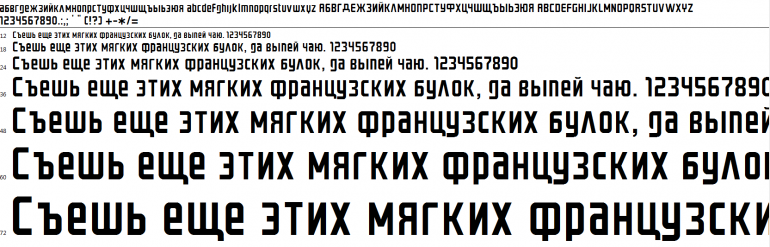
GordonFroman Posted April 22, 2019 Share Posted April 22, 2019 Greetings, Klei! I really enjoy playing your games and I'm more than happy that you added russian language into Oxygen Not Included (btw the game is awesome), but unfortunately there's no cyrillic version of the Graystroke font used in game, so all russian words are written with boring standart font. Well, there was no cyrrilic version, because I made one. I tried to add it into the game with mods, but I failed. So I decided to send it to you, so you could add it into the game. And here it is. I will be very happy if you add it :3 GRAYSTROKE.ttf Link to comment https://forums.kleientertainment.com/forums/topic/105234-add-a-cyrillic-font/ Share on other sites More sharing options...